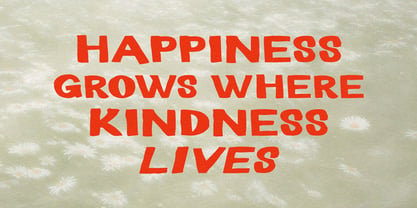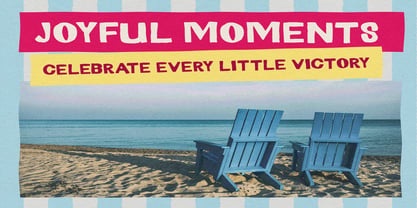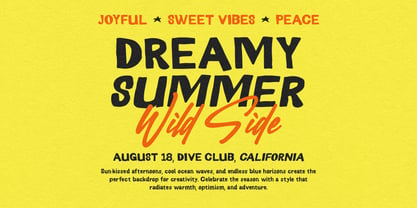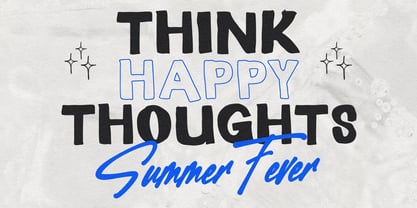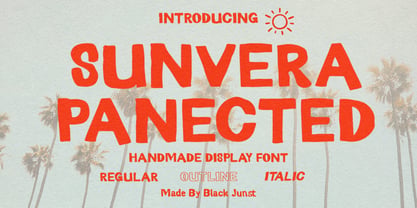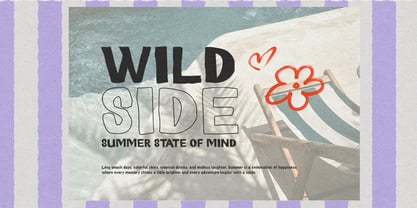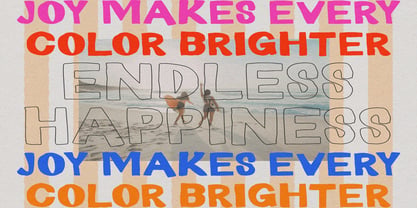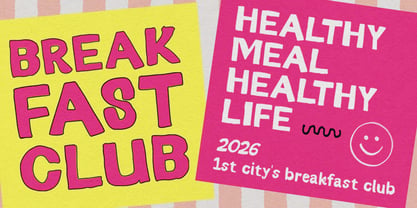
Sunvera Panected Outline
by Black Junst
The Sunvera Panected Outline Font Family was designed by Maulana Semar and published by Black Junst. Sunvera Panected Outline contains 3 styles and family package options. More about this family
Sunvera Panected – Handmade Display Font
Meet Sunvera Panected, a bold handmade display font crafted to give your designs a warm, playful, and handcrafted personality. Every character is carefully drawn to create an authentic organic look while maintaining excellent readability across both print and digital projects.
The family includes 3 versatile styles—Regular, Italic, and Outline—allowing you to mix and match for eye-catching typography, layered effects, and unique branding compositions.
Whether you're creating logos, product packaging, apparel graphics, posters, social media content, or editorial headlines, Sunvera Panected delivers a handcrafted aesthetic that instantly grabs attention.
Its slightly imperfect curves and natural stroke variations make it perfect for designers looking for a font that feels friendly, creative, and full of character.